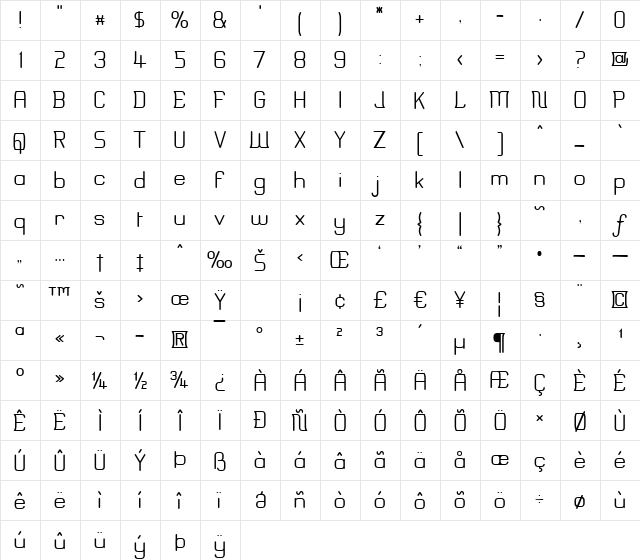
Erinal Regular
| Designer | Graham Meade |
Design Context for Erinal Typeface
Erinal offers clean, dependable letterforms without strong stylistic allegiance, making it a practical choice for designers who need flexibility.